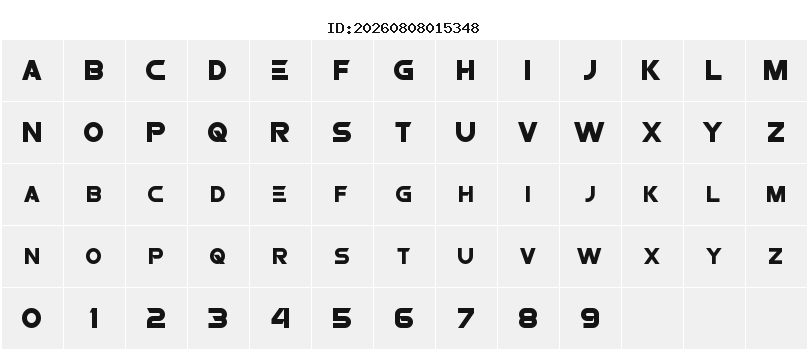
• Font Name: Protoculture
• Designer: Neale Davidson
About Protoculture.ttf
Protoculture.ttf is a modern, elegant sans-serif font designed for ultimate readability and visual harmony. Perfect for branding, headlines, web design, and print materials.